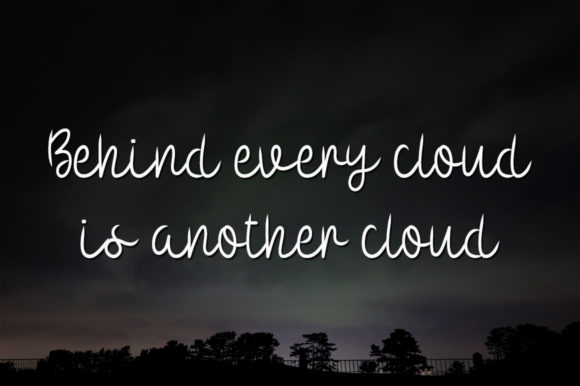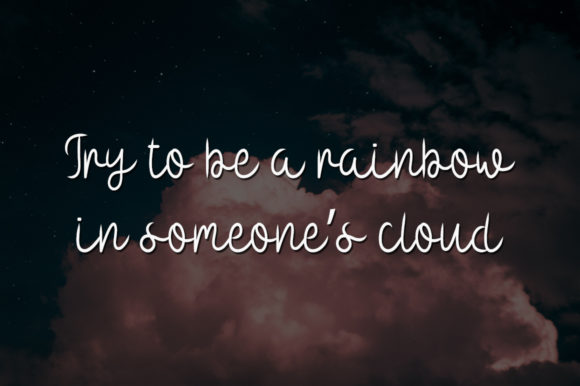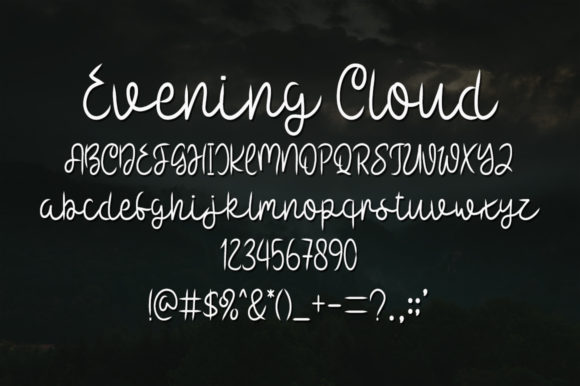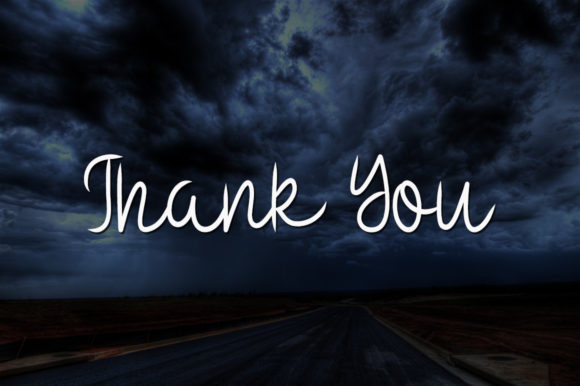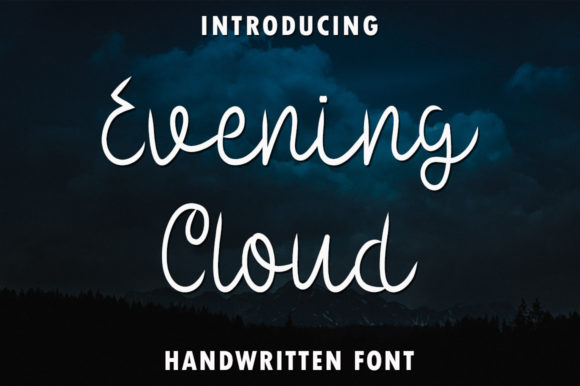
Discover the Charm of Evening Cloud Font: A Sweet and Delicate Handwritten Masterpiece
Are you a designer or crafter looking for a font that can add a touch of sweetness and delicacy to your projects? Look no further than the Evening Cloud Font. This beautiful handwritten font is a masterpiece of distinct and well-rounded letters that will make your designs stand out. With its incredibly versatile style, you can use Evening Cloud to create spectacular designs that will leave a lasting impression.
The Unique Characteristics of Evening Cloud Font
Evening Cloud Font is a one-of-a-kind handwritten font that boasts a range of unique characteristics. Its letters are carefully crafted to be both distinct and rounded, giving the font a soft and gentle feel. The font’s sweetness and delicacy make it perfect for designs that require a touch of elegance and sophistication. Whether you’re creating a logo, a poster, or a social media graphic, Evening Cloud Font is sure to impress.
The Versatility of Evening Cloud Font
One of the standout features of Evening Cloud Font is its incredible versatility. This font can be used in a wide range of design projects, from romantic and whimsical to modern and bold. Its delicate and sweet style makes it perfect for:
- Wedding and event invitations
- Digital and print journals
Whether you’re a professional designer or a crafty DIY enthusiast, Evening Cloud Font is a valuable addition to your font collection.
Tips for Using Evening Cloud Font
To get the most out of Evening Cloud Font, here are a few tips to keep in mind:
- Pair it with bold fonts: Evening Cloud Font’s delicate style makes it a great pairing with bold and modern fonts. This contrast will add visual interest and make your designs pop.
- Experiment with colors: The soft and gentle feel of Evening Cloud Font makes it perfect for pastel and muted color palettes. Try experimenting with different colors to find the perfect combination for your design.
- Use it for headings and titles: Evening Cloud Font’s unique and distinctive letters make it perfect for headings and titles. Use it to add a touch of elegance and sophistication to your designs.
Why Designers and Crafters Love Evening Cloud Font
Evening Cloud Font has quickly become a favorite among designers and crafters, and for good reason. Here are just a few reasons why:
- Unique and distinctive: Evening Cloud Font’s unique and distinctive letters make it stand out from other fonts.
- Easy to read: Despite its delicate style, Evening Cloud Font is easy to read and understand, making it perfect for designs that require a clear message.
- Highly versatile: As mentioned earlier, Evening Cloud Font can be used in a wide range of design projects, making it a valuable addition to any font collection.
In conclusion, Evening Cloud Font is a sweet and delicate handwritten font that is sure to charm designers and crafters alike. Its unique and distinctive letters, combined with its incredibly versatile style, make it a masterpiece that will elevate your designs to the next level. Whether you’re creating a romantic wedding invitation or a bold social media graphic, Evening Cloud Font is the perfect choice. So why wait? Fall in love with Evening Cloud Font today and start creating spectacular designs that will leave a lasting impression.